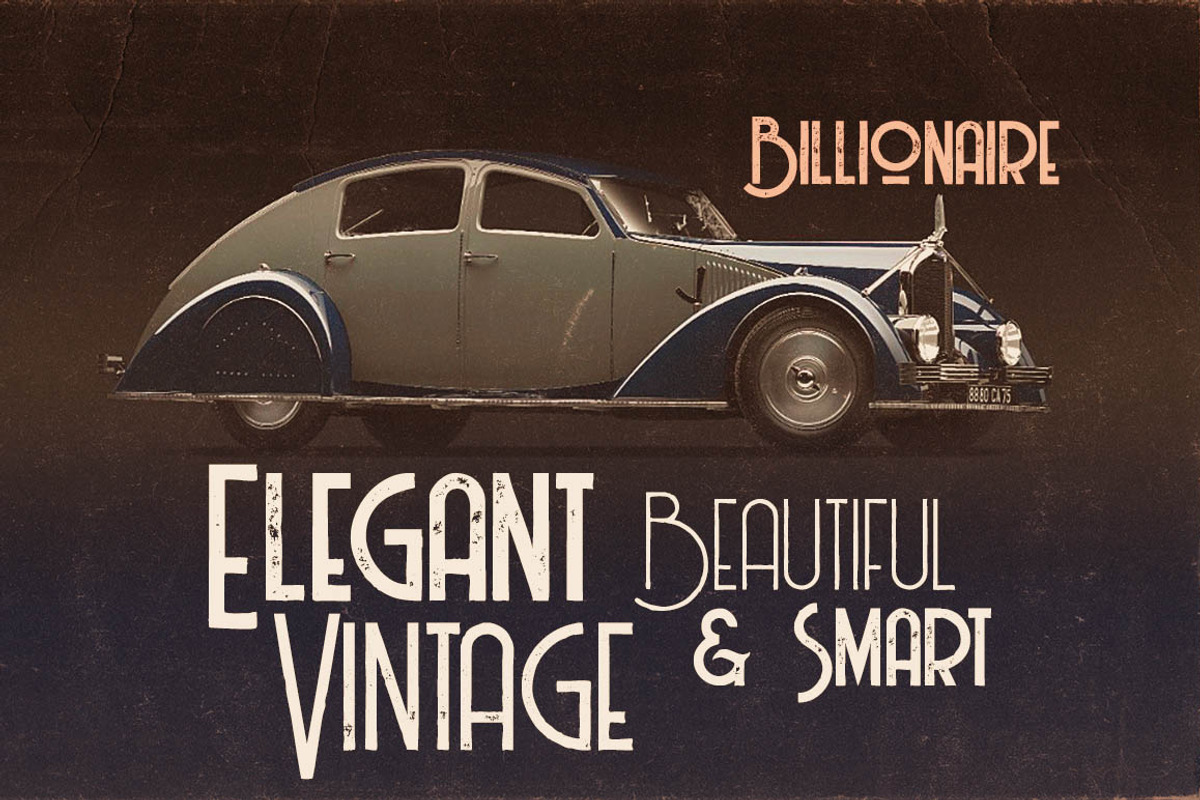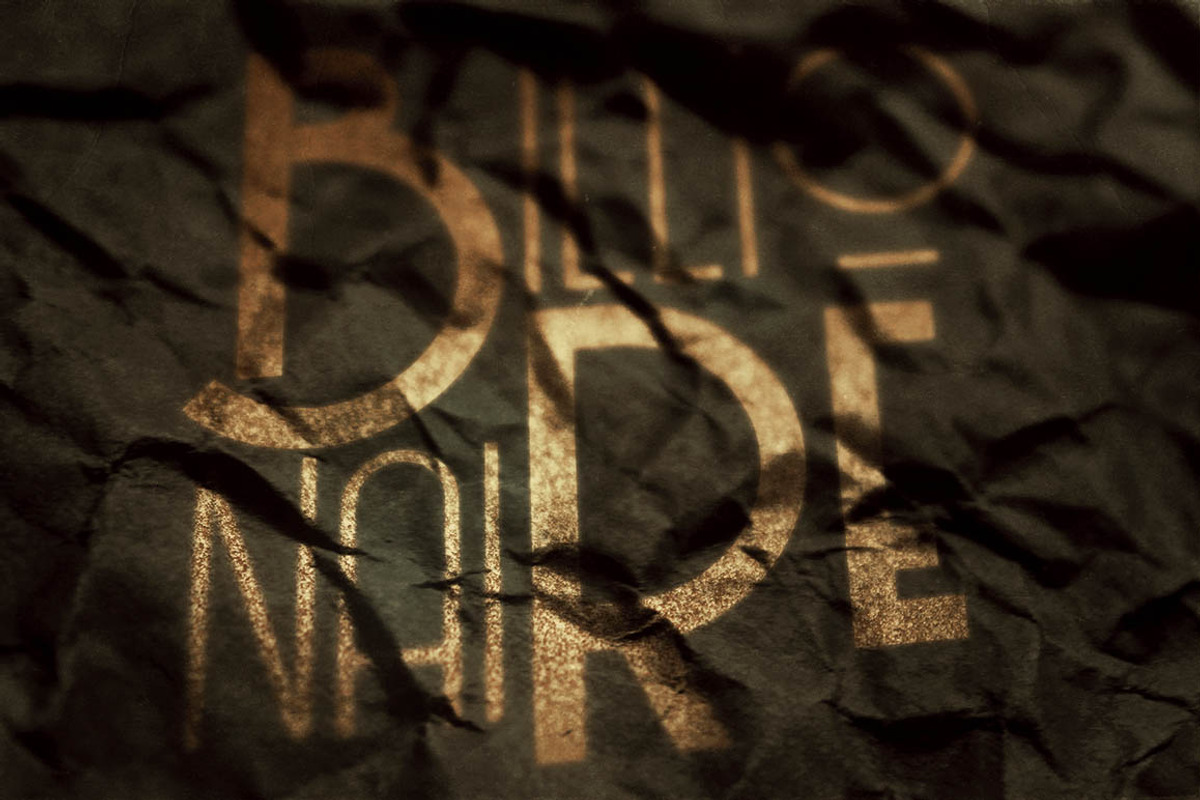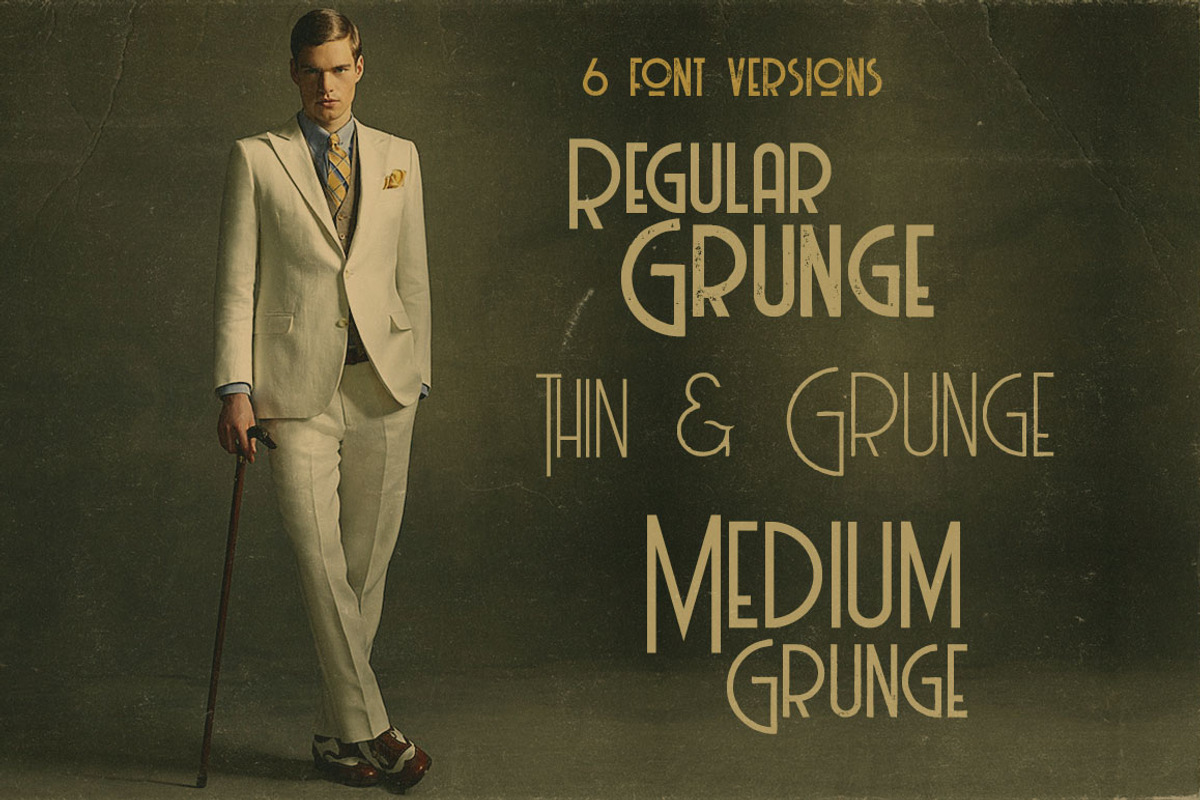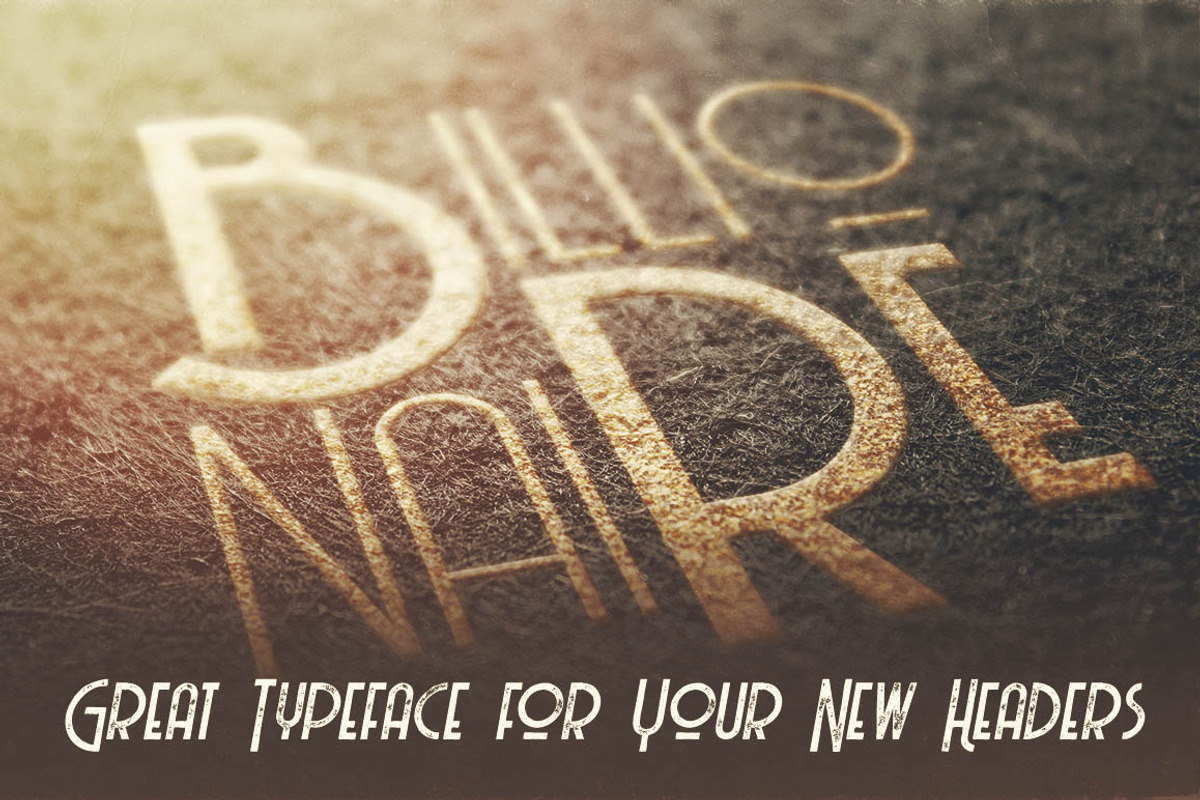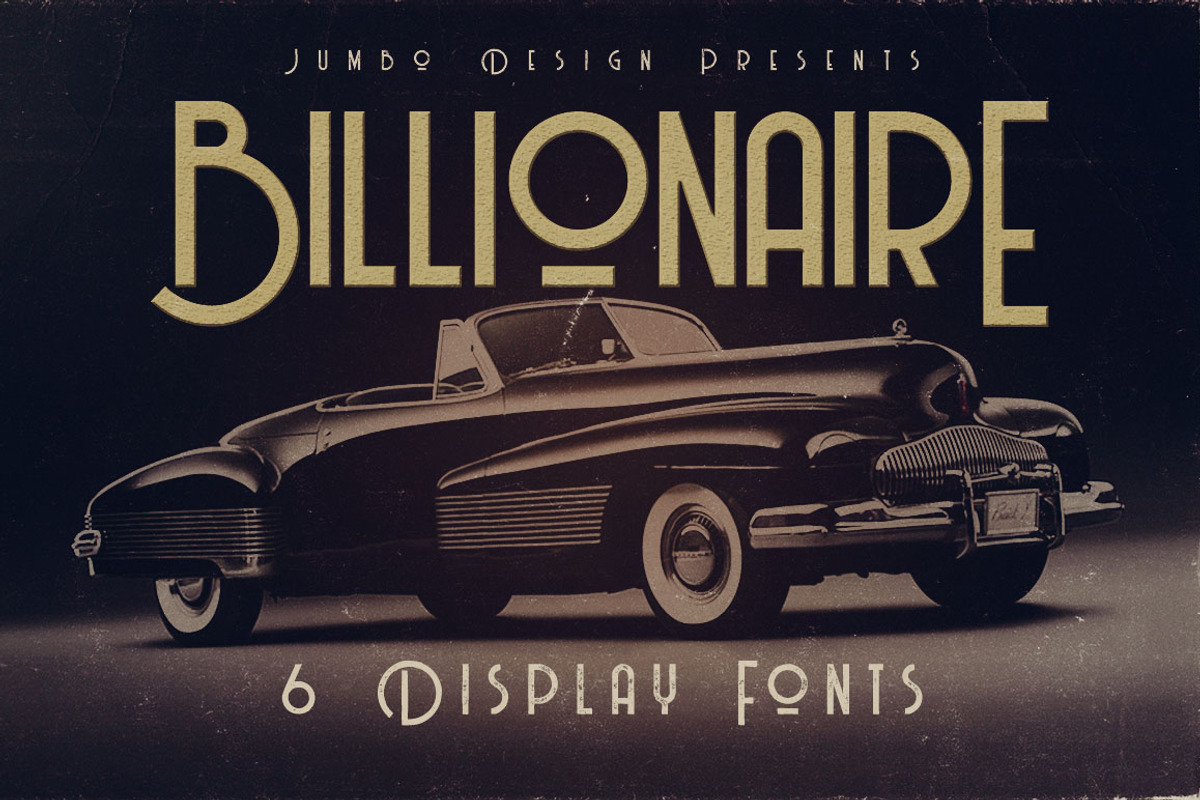
Billionaire - Display Font
Billionaire - Display Font by JumboDesign is a font selected for branding, posters, packaging, typography.
- Unique vintage or retro style custom sans serif font with 6 styles: regular and grunge, thin and thin grunge & medium & medium grunge TTF, O
Why Billionaire - Display Font is worth a look
Billionaire - Display Font by JumboDesign fits naturally into Branding, posters, packaging, typography.